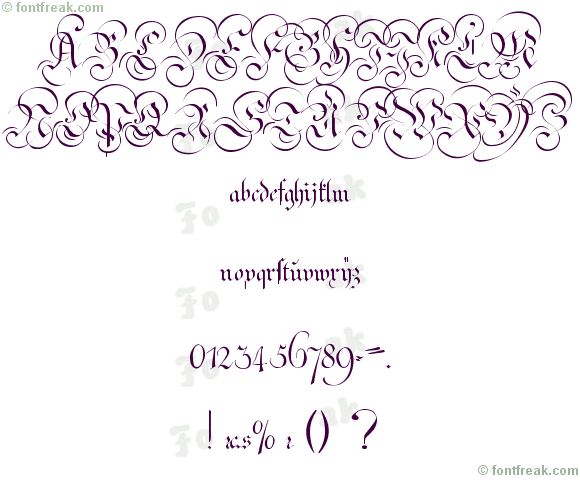
Strassburg Fraktur
Strassburg Fraktur, designed by Peter Wiegel, is a beautifully crafted serif font that pays homage to traditional German script styles. This font captures the essence of classic Fraktur typography, making it a captivating choice for various design projects. The unique visual characteristics of Strassburg Fraktur include its elegant stroke weight, which exhibits a fine balance between thick and thin lines, creating a pleasing contrast that enhances readability. The font features well-defined serifs and decorative elements that embody a charming, vintage aesthetic. The spacing is thoughtfully arranged, ensuring the letters maintain cohesion while allowing for easy legibility.
Strassburg Fraktur is particularly well-suited for a range of creative applications. It can elevate wedding invitations with its romantic flair, making special occasions feel even more memorable. Additionally, the font works wonderfully for movie posters, imparting a sense of nostalgia and drama that draws viewers in. Restaurant menus can also benefit from its charming style, adding a touch of sophistication to the dining experience. Content creators looking to add a unique twist to their branding or social media graphics will find this font a valuable asset, helping their projects stand out from the crowd.
The target audience for Strassburg Fraktur includes graphic designers, small business owners, and content creators who appreciate the beauty of traditional typography. With its availability as a freeware option, the Strassburg Fraktur font free download offers an accessible way to incorporate this distinctive style into various design projects. This font stands out not only for its historical significance but also for its versatility, making it an exceptional choice for those seeking to enhance their visual storytelling with a touch of elegance.